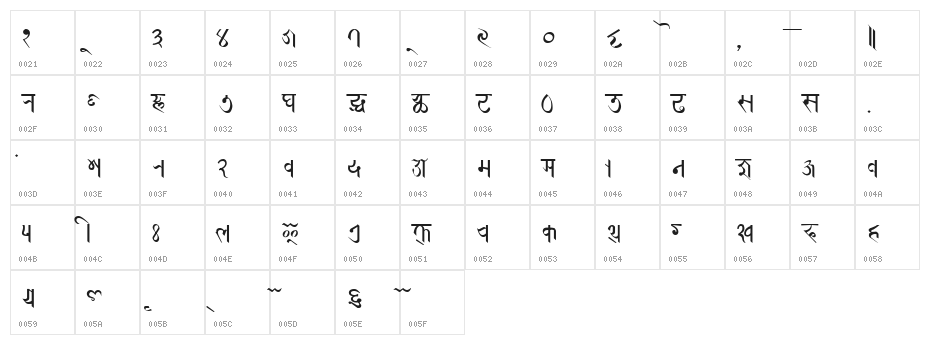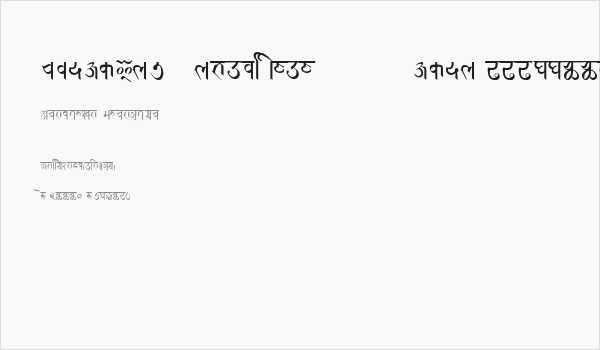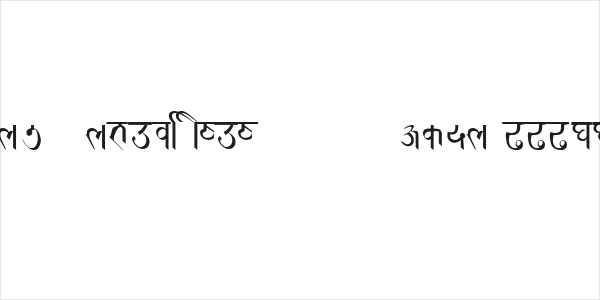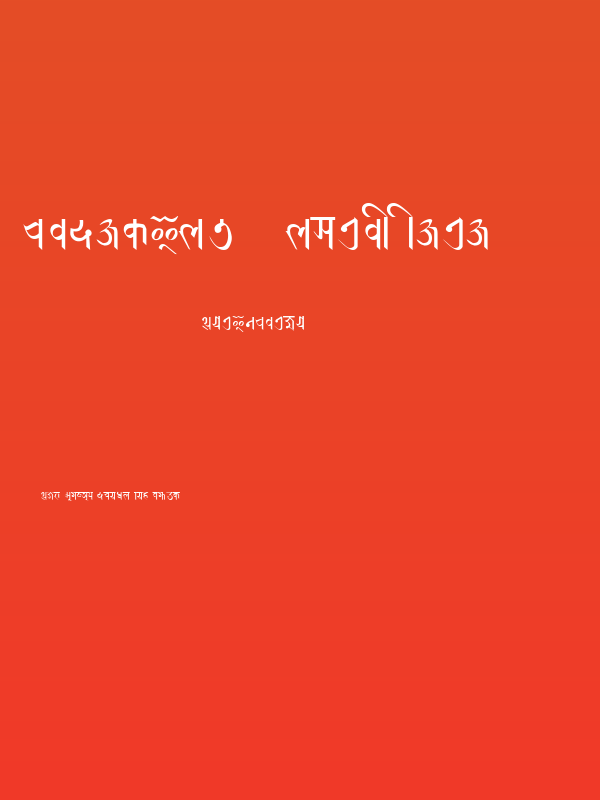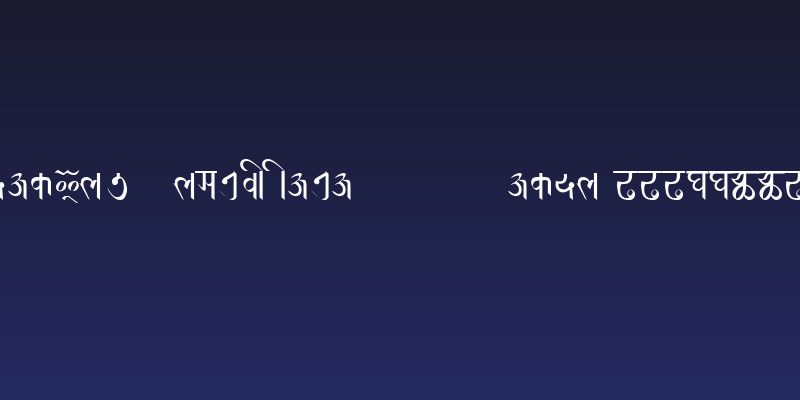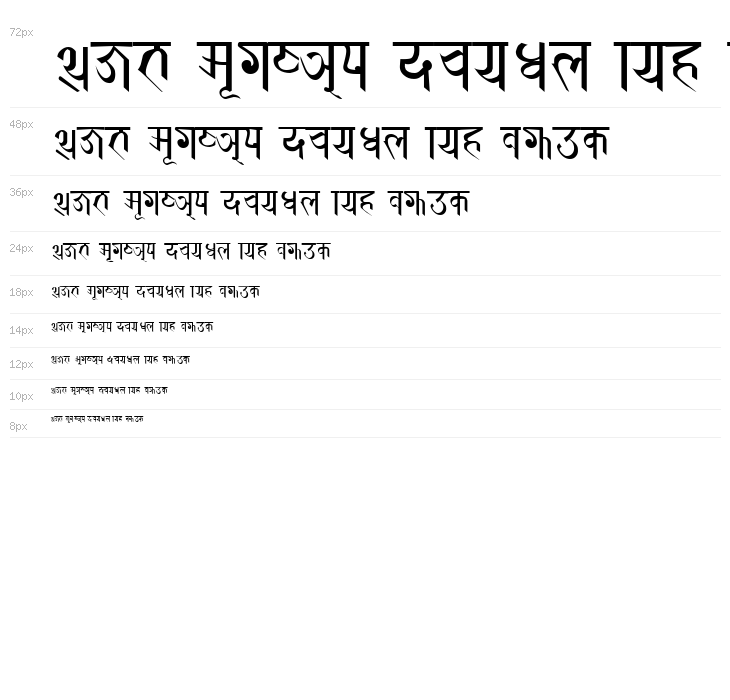
RABISON2 Nepal Lipi ISBN 9993355925 Font
RABISON2 Nepal Lipi ISBN 9993355925 Description
This font is a traditional script used in Nepal, characterized by its intricate and flowing design. The characters are elegantly crafted with a combination of sharp angles and smooth curves, giving it a distinct and cultural appearance. The script includes a variety of unique symbols and diacritics, which are essential for accurate representation of the language. The overall design is both decorative and functional, making it suitable for formal documents and cultural texts. The font's style reflects a rich heritage, with each character meticulously designed to maintain readability while preserving its artistic flair.
| Overall Style | Traditional |
| Use Case | Cultural texts, Formal documents |
| Proposed Projects | Ideal for cultural publications, educational materials, and traditional event invitations. |